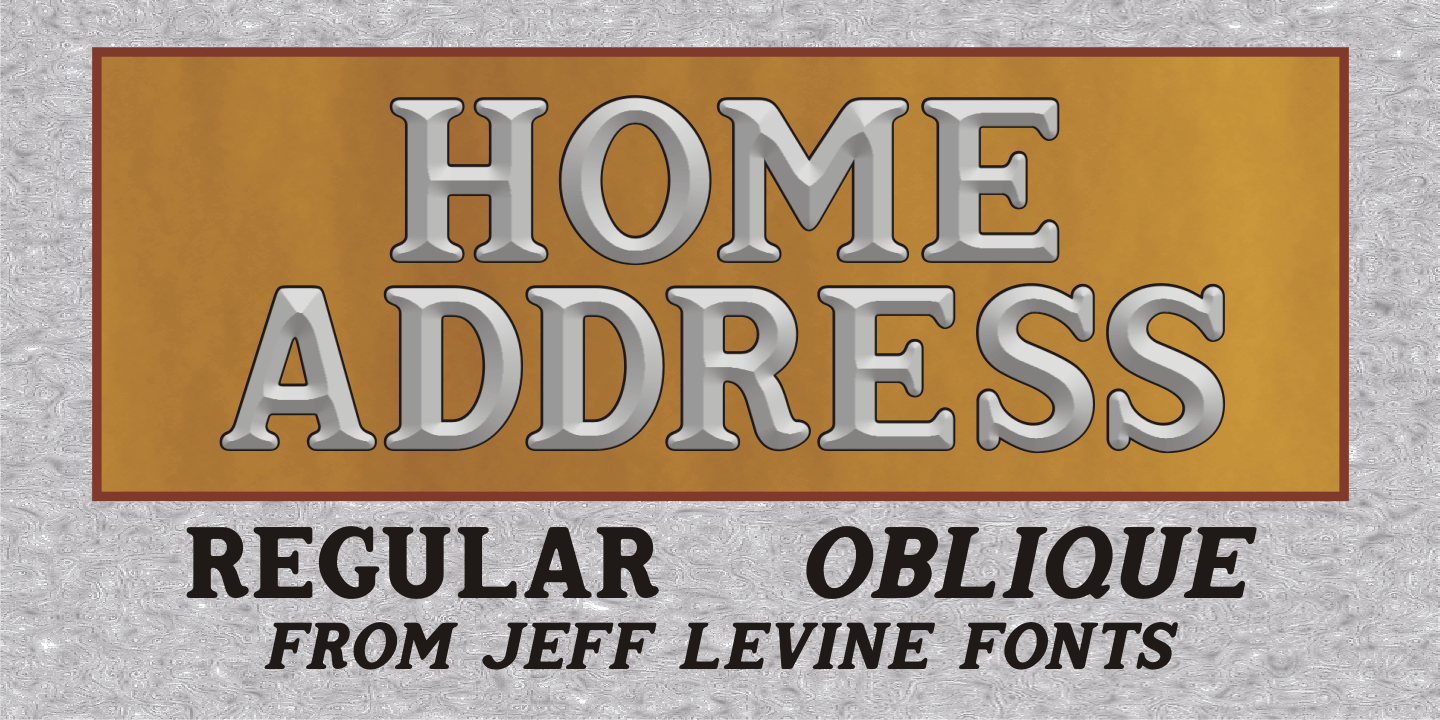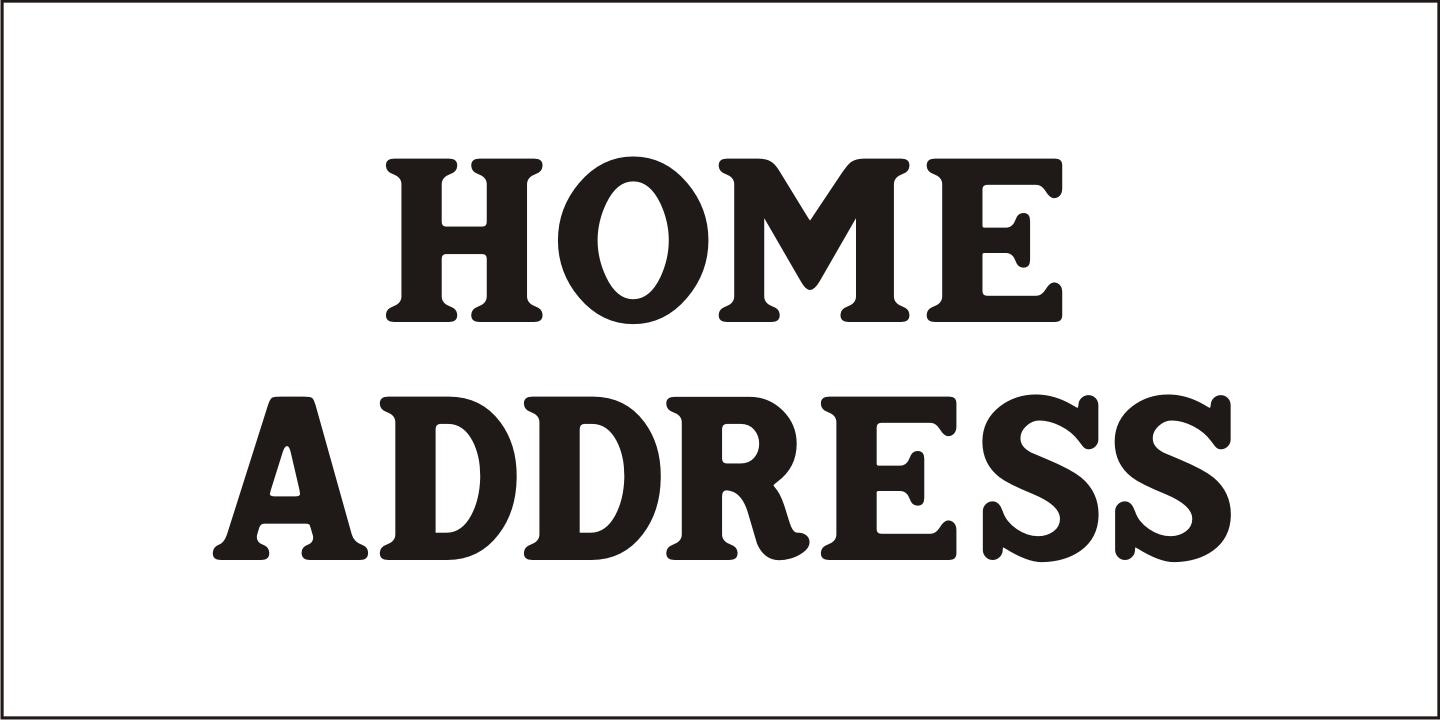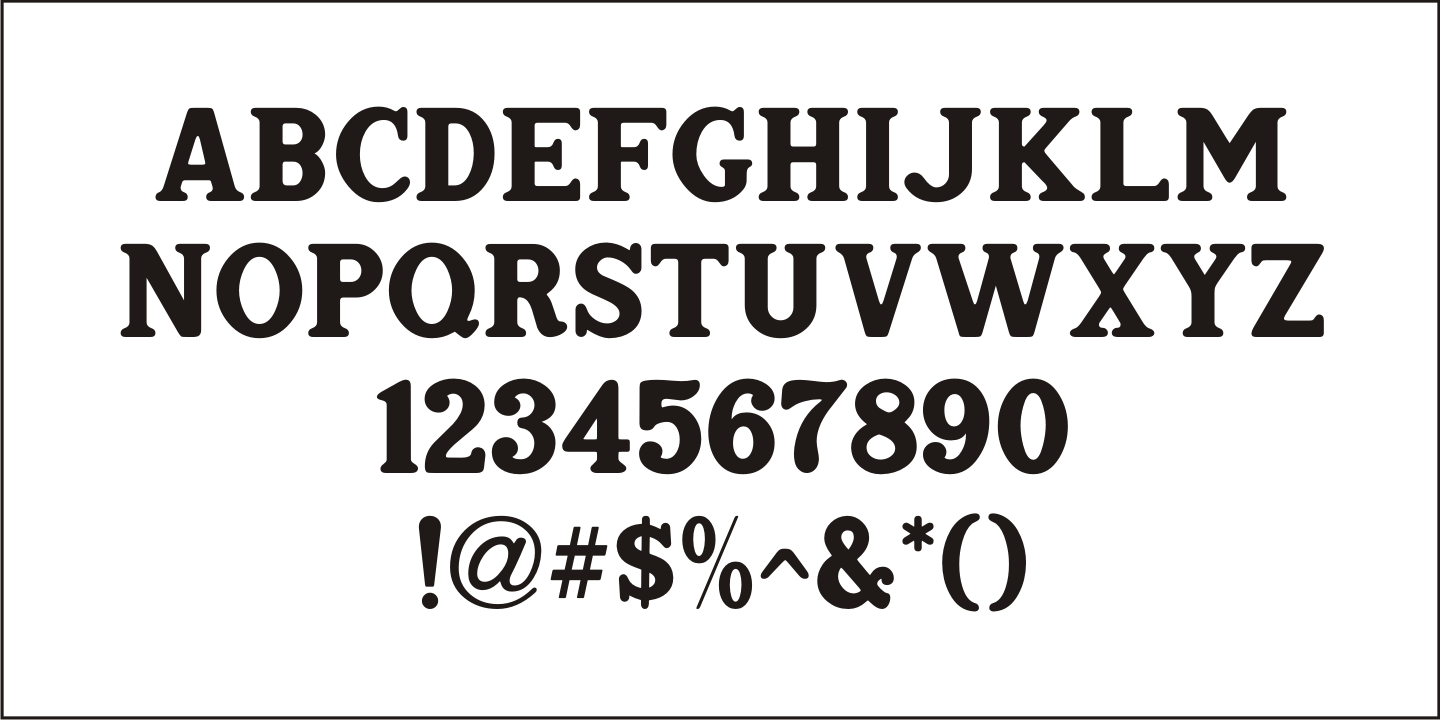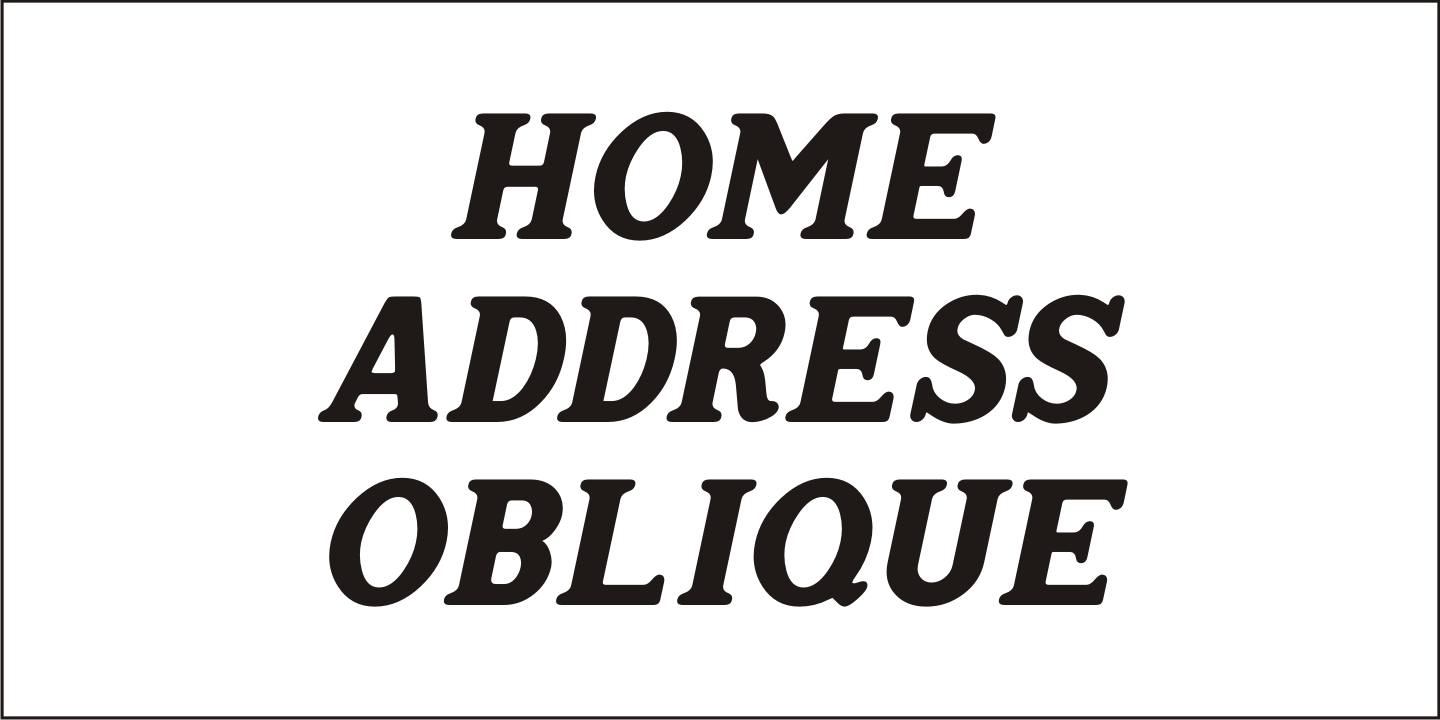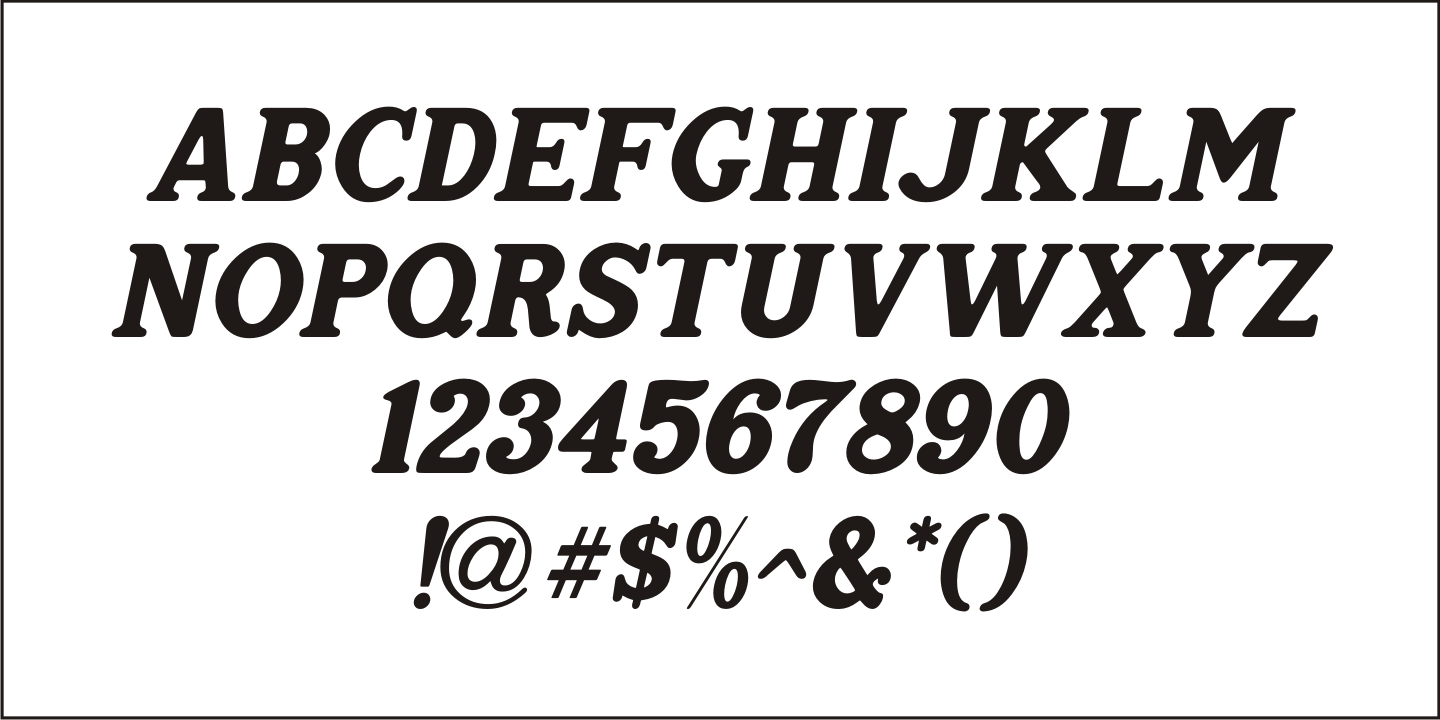
Home Address
Some vintage Beacon metal door letters used for identifying addresses on home and business buildings was spotted in an online auction from England.
Those few letters were the inspiration for Home Address JNL, which is available in both regular and oblique versions.